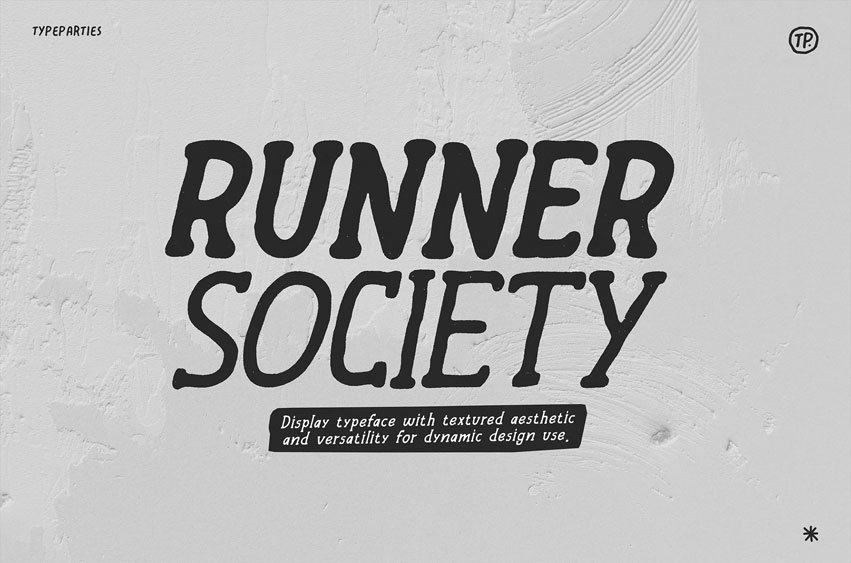
Runner Society Font is a Retro Serif Display Font with regular and bold styles that combines the raw, textured aesthetic of rough typography with versatility for dynamic design use. The regular style offers a balanced, subtly distressed appearance, ideal for less dominant text elements or a more understated look.
The bold style, on the other hand, features a stronger, more pronounced texture, making it perfect for headlines, titles, or key visual elements where maximum impact is required.